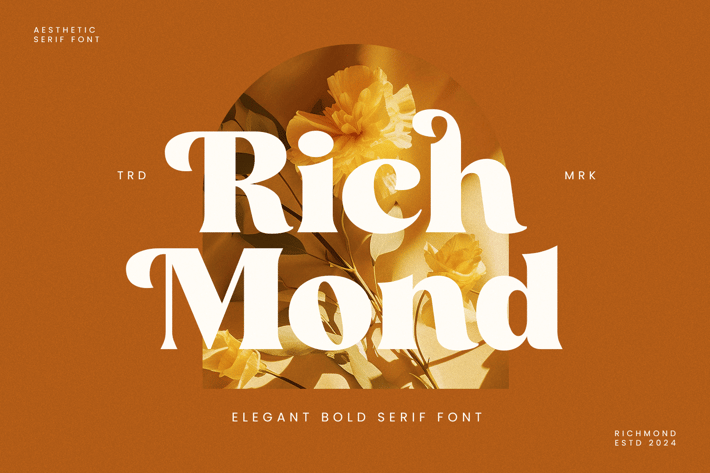
Richmond - Bold Serif Font
Introducing "Richmond," an elegant bold serif font designed to elevate your branding, advertising, posters, magazines, headlines, and more. This sophisticated typeface boasts a refined touch with soft nodes, giving each character a strong yet graceful presence. Ideal for making a powerful statement, "Richmond" combines classic elegance with modern boldness, ensuring your designs stand out with authority and style.
Transform your creative projects with the striking "Richmond" font. Its bold serifs and smooth curves lend a professional and polished look to any application, whether you're crafting compelling advertisements, eye-catching posters, or sophisticated magazine layouts. The robust character of "Richmond" makes it perfect for headlines that demand attention, delivering a clear and impactful message every time.